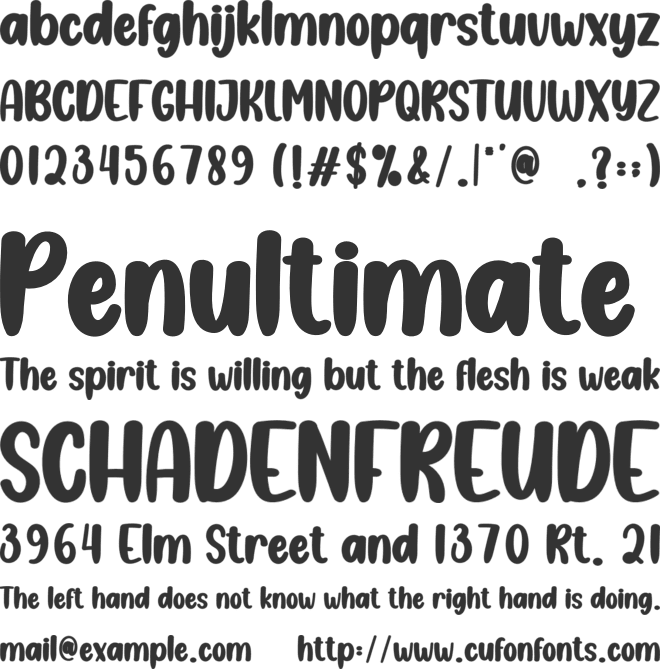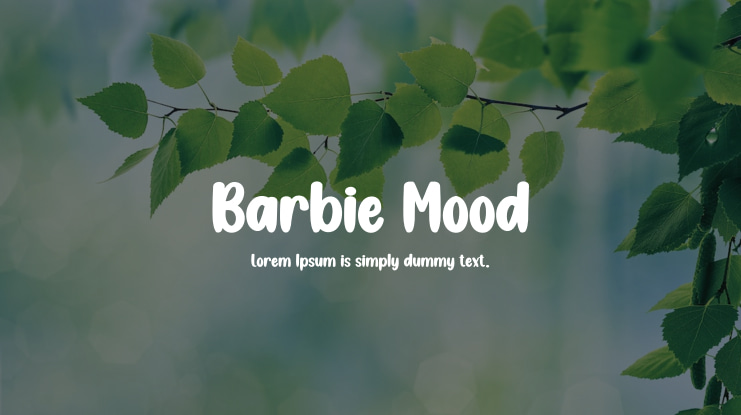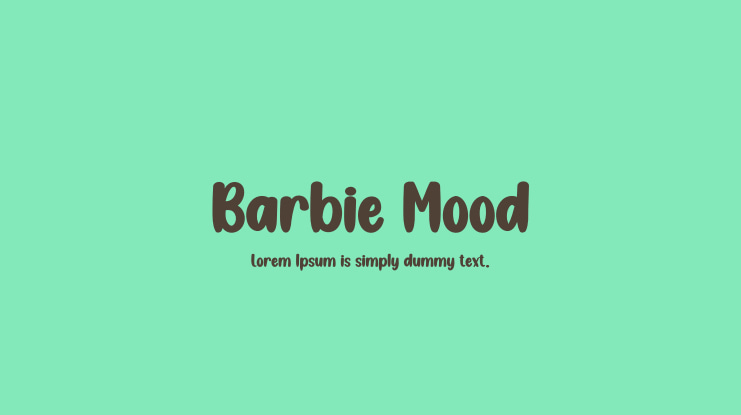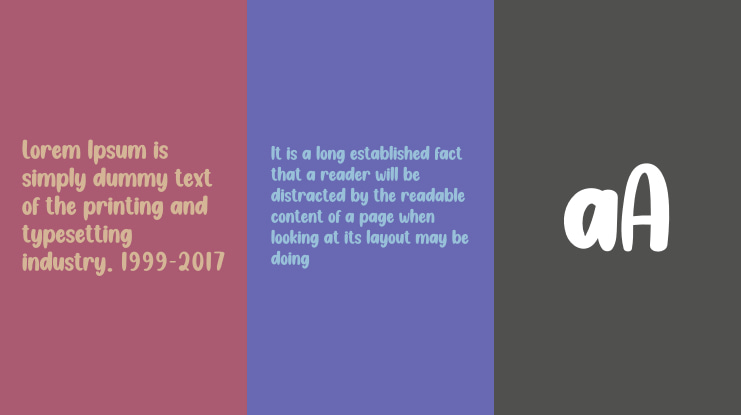
Barbie Mood Font
Special creative products for you. Our products will provide you with an extraordinary experience. The latest style letters are perfect for wall displays, wedding invitations, social media post logos, advertisements, product packaging, product designs, labels, photography, watermarks, invitations, stationery, and any project that requires tasteful handwriting.